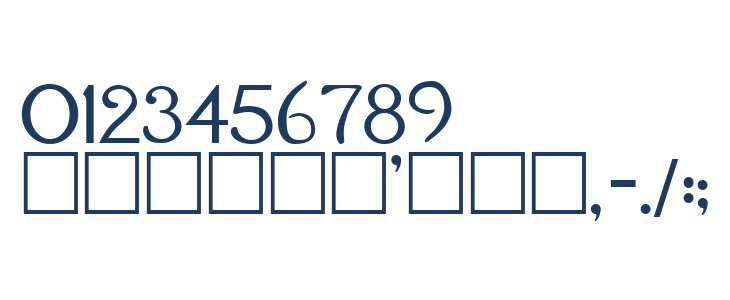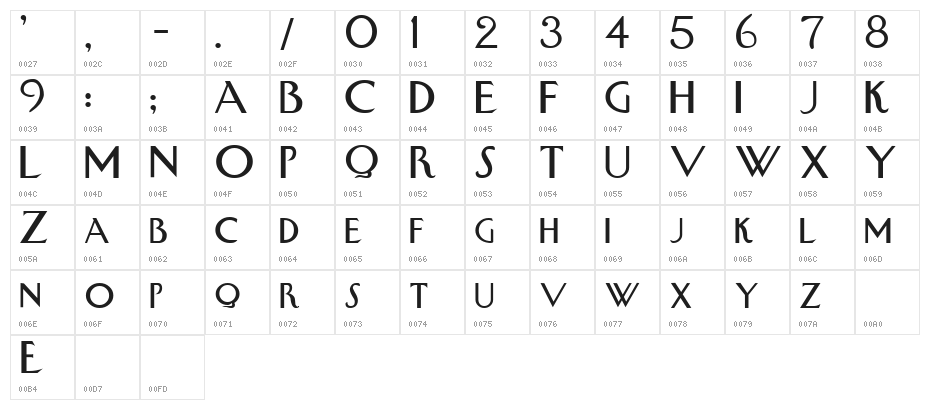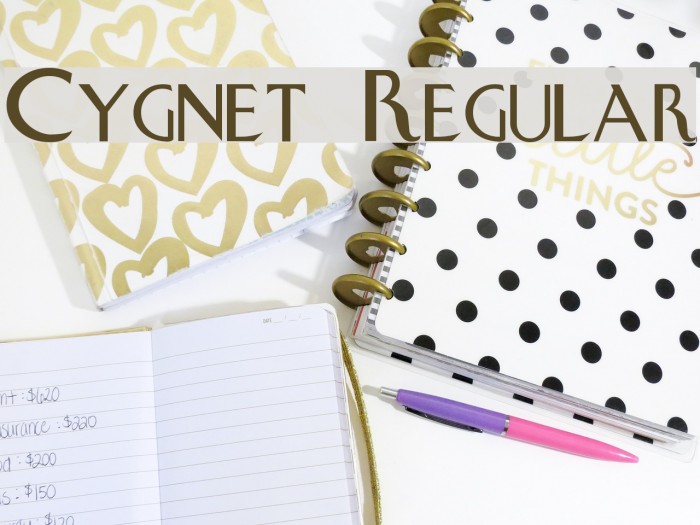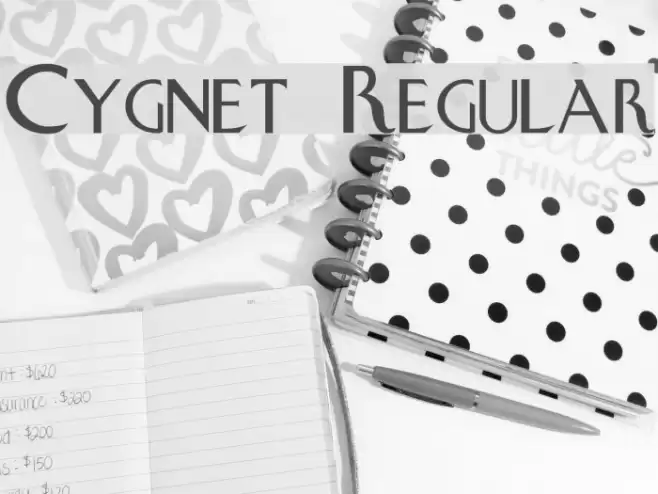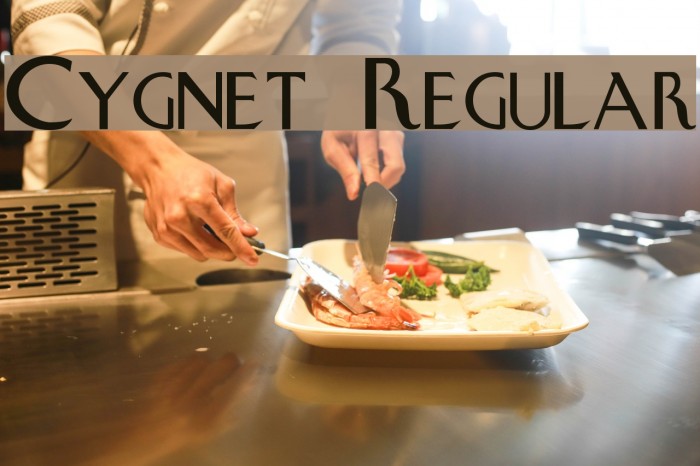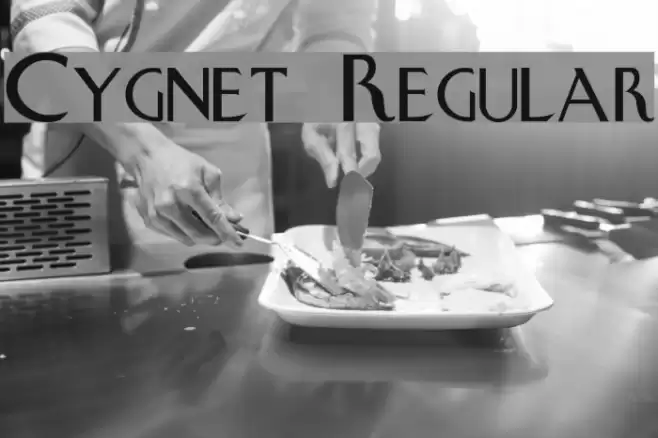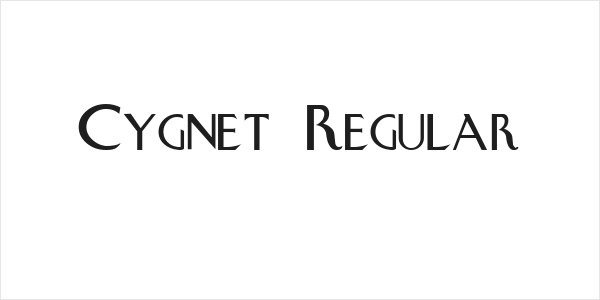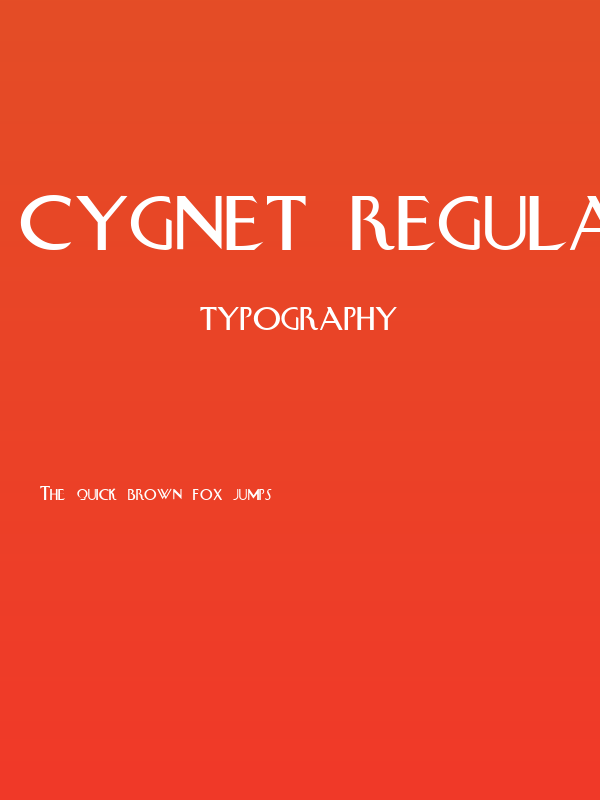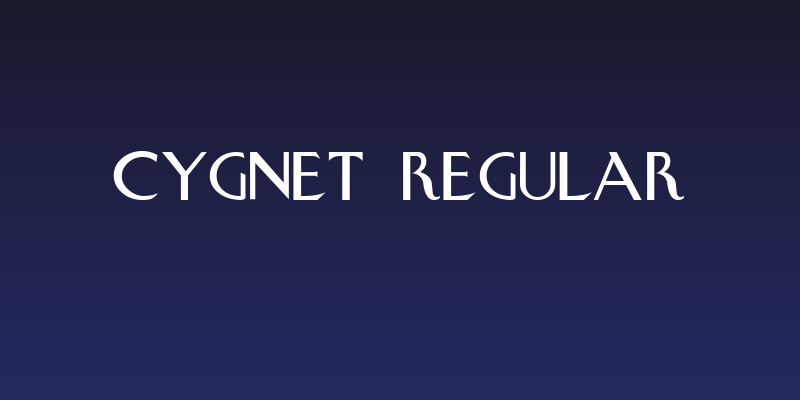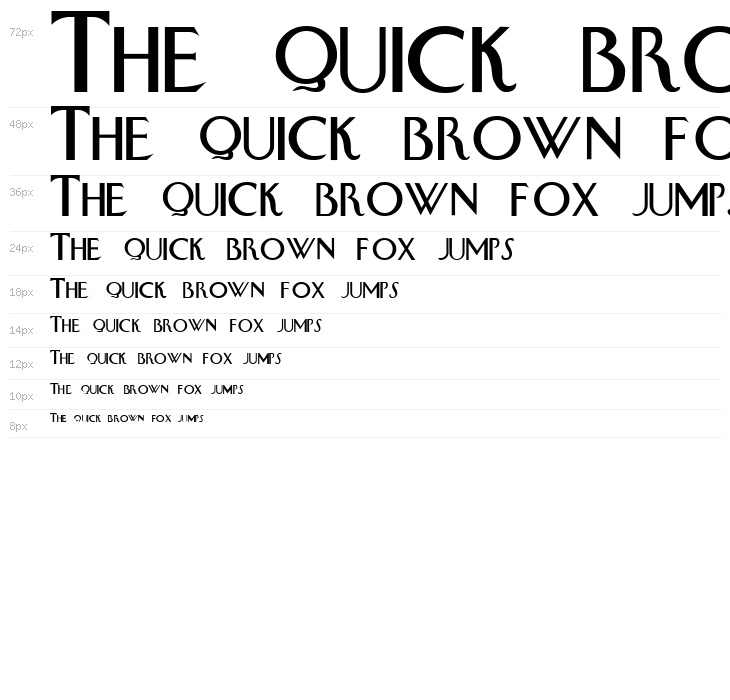
Cygnet Regular Font
Cygnet Regular Description
This font exhibits a unique blend of classic and modern design elements, characterized by its elegant and sharp serifs. The uppercase letters are bold and commanding, with a slight curvature that adds a touch of sophistication. The lowercase letters maintain a consistent style, offering a harmonious flow that complements the uppercase. The numerals are distinct and easily readable, featuring a balanced weight that ensures clarity. Special characters are crafted with the same attention to detail, providing a cohesive look across all glyphs. This font's overall aesthetic is both timeless and versatile, making it suitable for a variety of design applications.